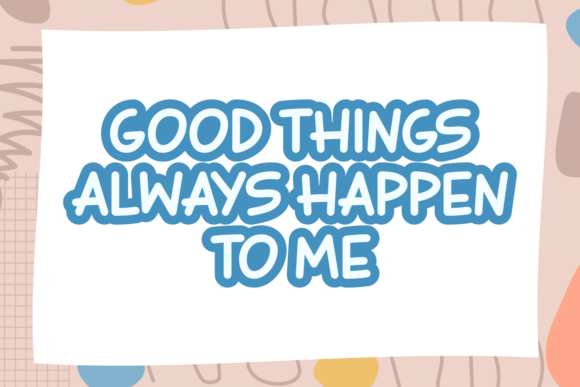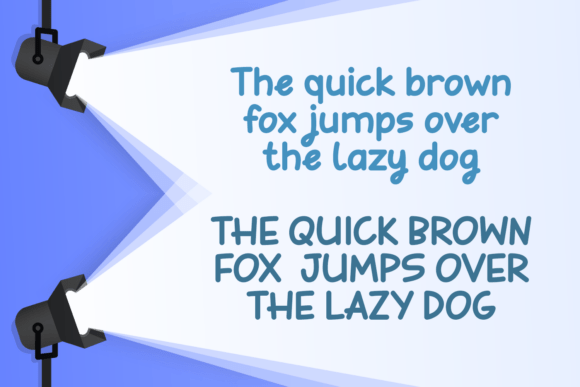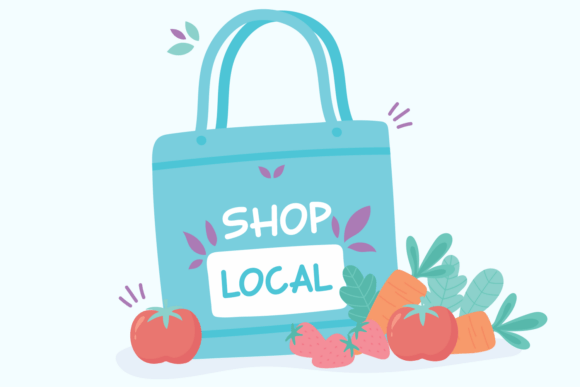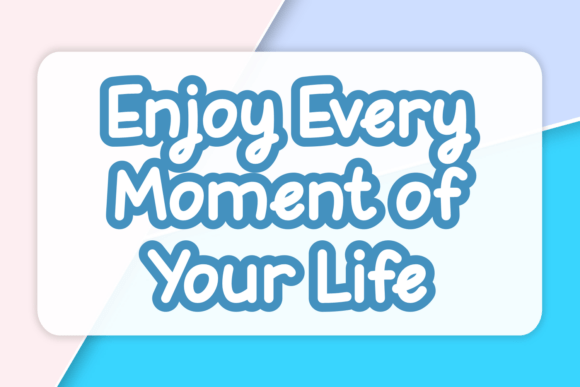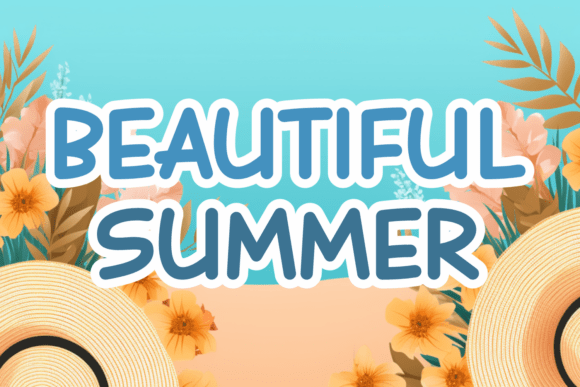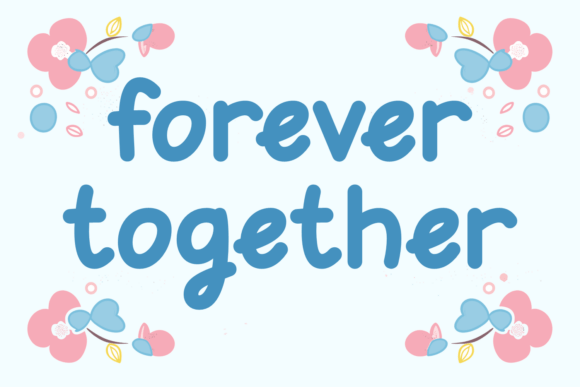
Discovering the Joy of Handwritten Design
Have you ever stumbled upon a font that instantly makes you want to create something new and exciting? For many designers, that moment comes when they lay eyes on the Hello Uncle Font. Its cheerful, handwritten style is like a breath of fresh air, radiating a friendly and playful vibe that’s perfect for a wide range of creative projects.
As a versatile font, Hello Uncle is designed to add a touch of casual fun to children’s designs, greeting cards, and branding that needs a lighthearted, handwritten style. Its rounded, bubbly letterforms with thick, contrasting outlines create a bold yet approachable look that’s sure to capture attention. Whether you’re a seasoned designer or just starting out, the Hello Uncle Font is a valuable addition to your toolkit, offering endless possibilities for creative expression.
Hello Uncle Font Key Features
- Font Family: Hello Uncle is a sans-serif font family designed for digital use.
- Character Count: The font family includes a wide range of characters, including uppercase and lowercase letters, numbers, and punctuation marks.
- Resolution: Designed to be highly legible at resolutions as low as 72 dpi, making it ideal for digital displays and online content.
- Size Range: Available in 6 weights, from Light to Black, offering flexibility for various design applications and tone settings.
- Unique Characteristics: Hello Uncle features a unique, rounded design with a friendly and approachable feel, making it perfect for branding, advertising, and digital interfaces.
Hello Uncle Font Review
Hello Uncle Font is a unique and quirky sans-serif typeface that has the potential to elevate any design project. ✨ One of its standout features is its expressive and friendly vibe, making it perfect for projects that require a conversational tone. ✨ The font’s rounded edges and geometric shapes give it a modern feel, while its playful nature makes it suitable for creative and artistic projects.
However, as with any font, there are some limitations. ⚠️ One major concern is its lack of versatility, making it less suitable for projects that require a more formal tone. ⚠️ Additionally, the font’s weight and contrast may not be suitable for small text sizes, which can make it difficult to read. ⚠️
Overall, I would give Hello Uncle Font 3.5 out of 5 stars. While it’s a fun and expressive font, its limitations make it less versatile than other sans-serif fonts on the market. That being said, it’s still a great option for projects that require a friendly and approachable tone.
Here are some use cases where Hello Uncle Font shines:
- Graphic design projects, such as social media graphics and posters
- Blog posts and articles that require a conversational tone
- Product branding and packaging that requires a friendly and approachable vibe
Hello Uncle Font is ideal for creative projects, such as:
– Brochures and flyers
– Infographics
Getting the Most Out of Hello Uncle Font
To get the most out of Hello Uncle Font, experiment with different font sizes, styles, and combinations. You can also pair it with other fonts to create unique and visually appealing designs.
Q: What is the recommended font size for optimal readability with Hello Uncle Font?
For optimal readability, we recommend using font sizes between 12 and 24 points. This range ensures clear text rendering and legibility across various devices and screen resolutions.
Q: Does Hello Uncle Font support Unicode characters?
Yes, Hello Uncle Font supports a wide range of Unicode characters, including Latin, Cyrillic, and Greek scripts. This ensures that the font can be used for text in multiple languages, including English, Spanish, French, and more.